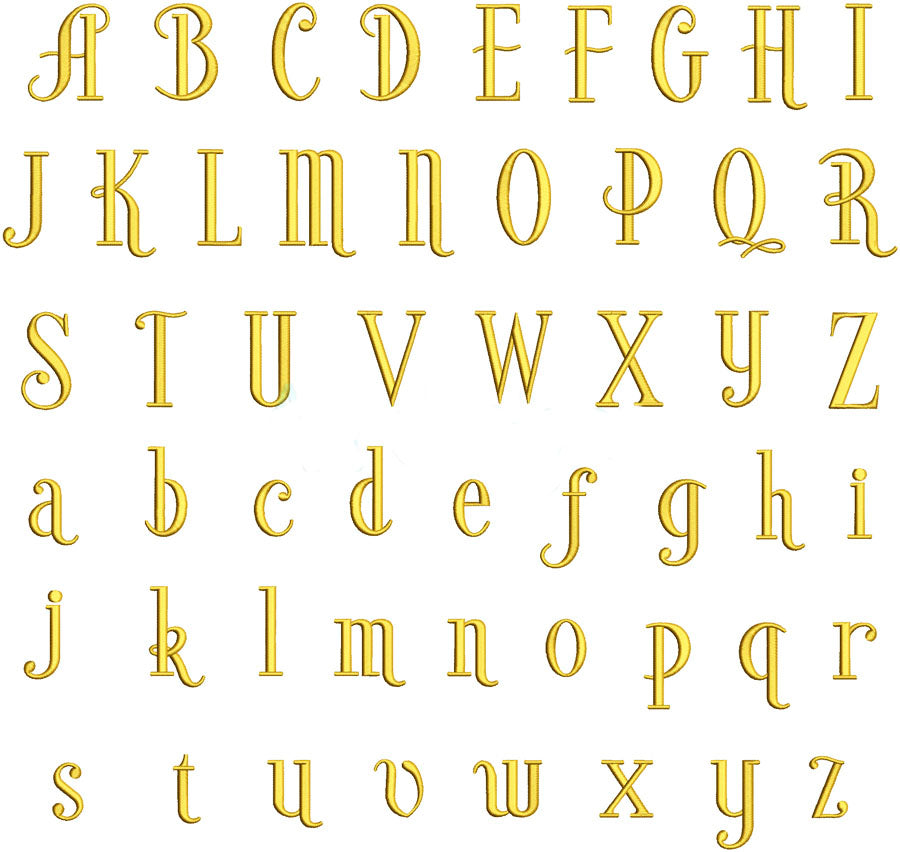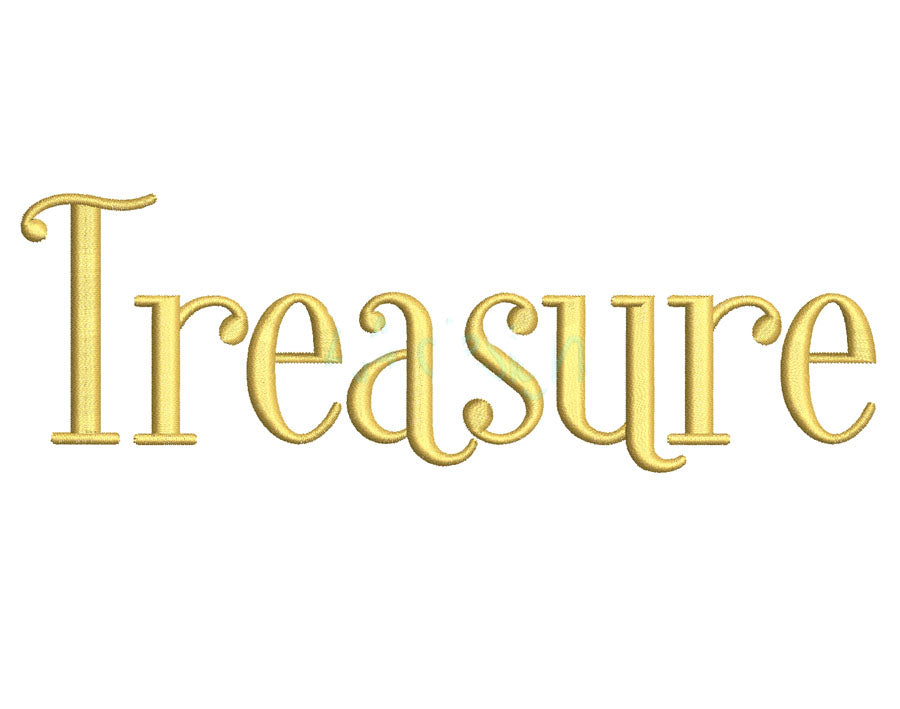
Add an elegant, timeless touch to your machine embroidery projects with the Treasure Script Embroidery Font. This graceful script is perfect for monograms, names, personalized gifts, linens, and keepsakes.